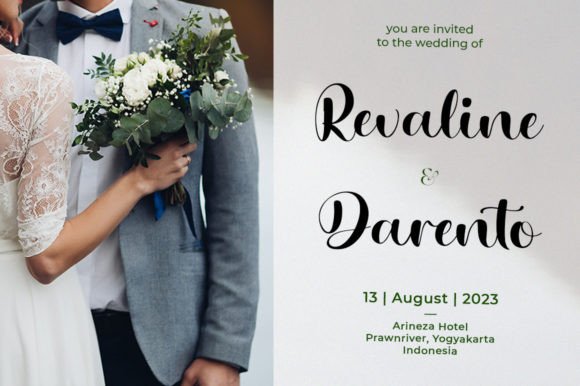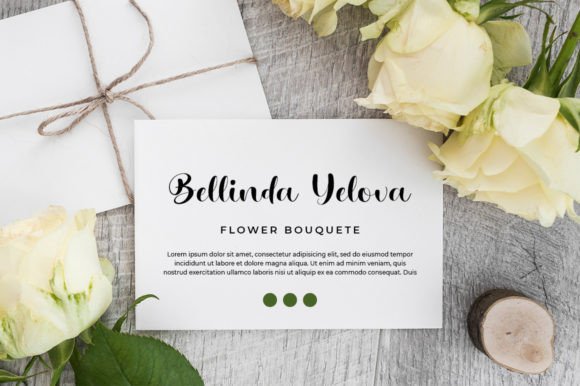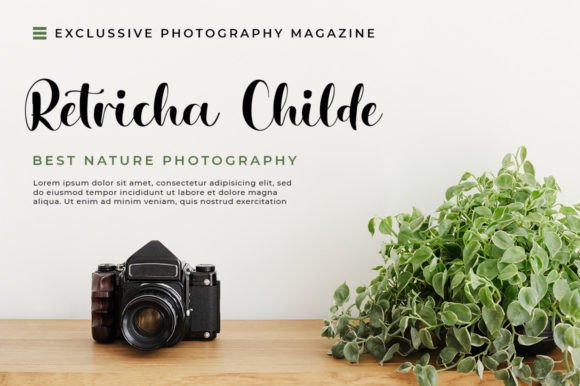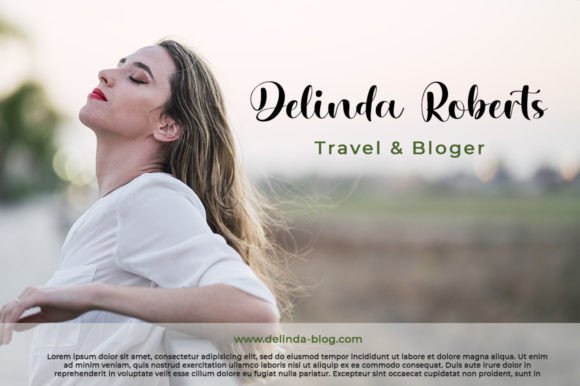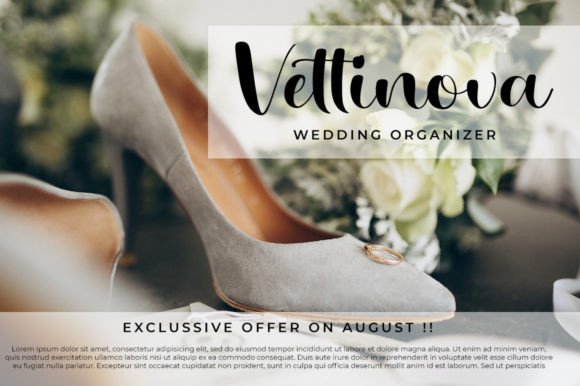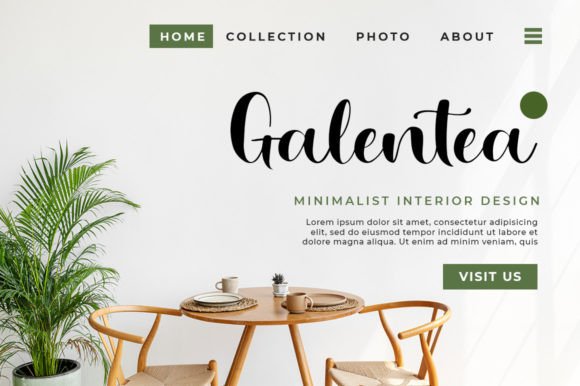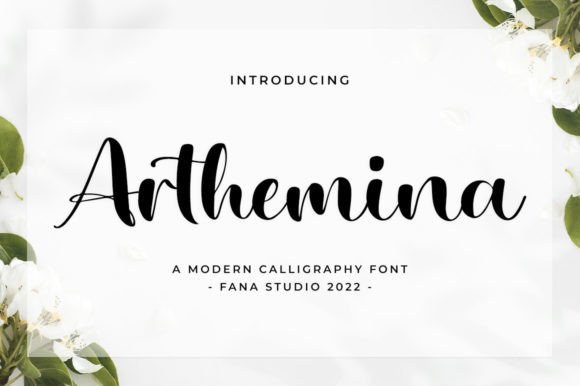
Introducing Arthemina Font: Elevate Your Designs with Elegance and Sophistication
Are you a designer or crafter looking for a font that exudes modernity, style, and beauty? Look no further than Arthemina Font, a stunning handwritten font perfect for a wide range of design applications. In this article, we’ll dive into the world of Arthemina Font, exploring its features, benefits, and uses, and why it’s a must-have for any creative professional.
What is Arthemina Font?
Arthemina Font is a modern, stylish, and beautiful handwritten font designed to add a touch of elegance and sophistication to your designs. Its unique and flowing script makes it perfect for logos, branding, invitations, stationery, wedding designs, social media posts, advertisements, product packaging, product designs, labels, photography, watermarks, and special events.
Key Features of Arthemina Font
- Modern and Stylish: Arthemina Font boasts a fresh and contemporary look that’s sure to make your designs stand out.
- Handwritten with Love: This font is carefully crafted to mimic the natural flow of handwriting, giving your designs a personal and human touch.
- Versatile: Arthemina Font is suitable for a wide range of design applications, from logos and branding to social media posts and product packaging.
- Elegant and Sophisticated: This font exudes elegance and sophistication, making it perfect for high-end designs and special events.
Benefits of Using Arthemina Font
So, why should you choose Arthemina Font for your designs? Here are just a few benefits:
- Adds a Personal Touch: Arthemina Font’s handwritten style adds a personal and human touch to your designs, making them more relatable and engaging.
- Enhances Brand Identity: With its unique and stylish script, Arthemina Font can help you create a strong brand identity that sets you apart from the competition.
- Easy to Read: This font is designed to be easy to read, making it perfect for body text and captions.
- Scalable: Arthemina Font is highly scalable, ensuring that it looks great in any size or resolution.
Use Cases for Arthemina Font
Arthemina Font is an incredibly versatile font that can be used in a wide range of design applications, including:
- Logos and Branding: Create a stunning logo or brand identity with Arthemina Font’s unique and stylish script.
- Invitations and Stationery: Add a touch of elegance and sophistication to your invitations, stationery, and wedding designs.
- Social Media Posts: Elevate your social media posts with Arthemina Font’s modern and stylish script.
- Advertisements: Create eye-catching advertisements with Arthemina Font’s bold and attention-grabbing style.
- Product Packaging: Add a personal touch to your product packaging with Arthemina Font’s handwritten style.
Tips and Tricks for Using Arthemina Font
Here are a few tips and tricks to help you get the most out of Arthemina Font:
- Experiment with Sizes: Arthemina Font looks great in a range of sizes, so don’t be afraid to experiment and find the perfect size for your design.
- Pair with Other Fonts: Try pairing Arthemina Font with other fonts to create a unique and eye-catching combination.
- Use for Headings and Titles: Arthemina Font’s bold and stylish script makes it perfect for headings and titles.
In conclusion, Arthemina Font is a stunning handwritten font that’s perfect for designers and crafters looking to add a touch of elegance and sophistication to their designs. With its modern and stylish script, versatility, and ease of use, Arthemina Font is a must-have for any creative professional. So why wait? Download Arthemina Font today and take your designs to the next level!